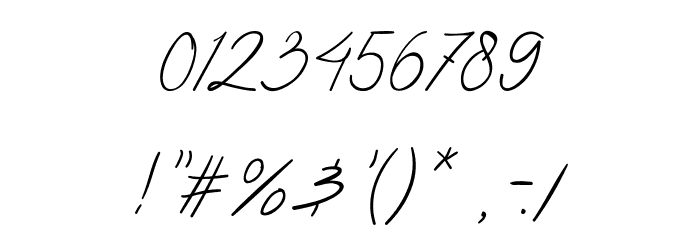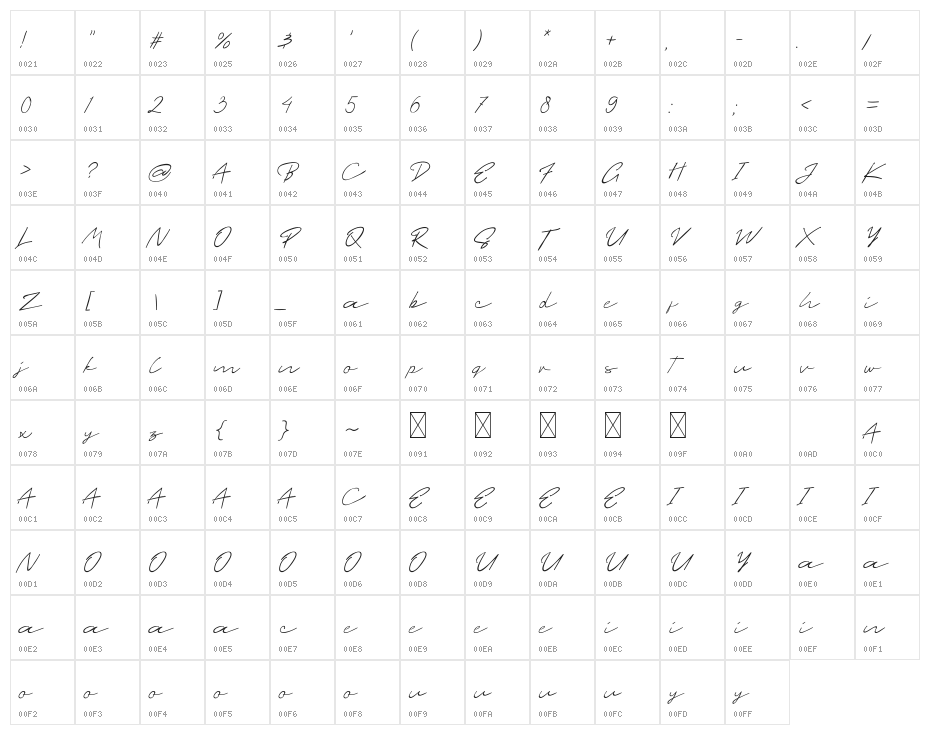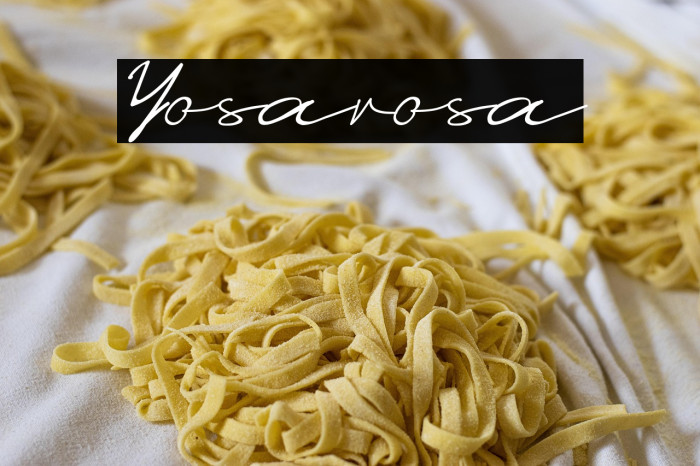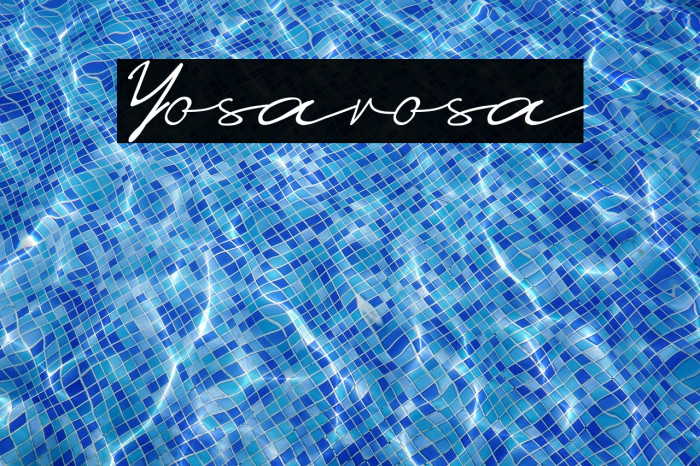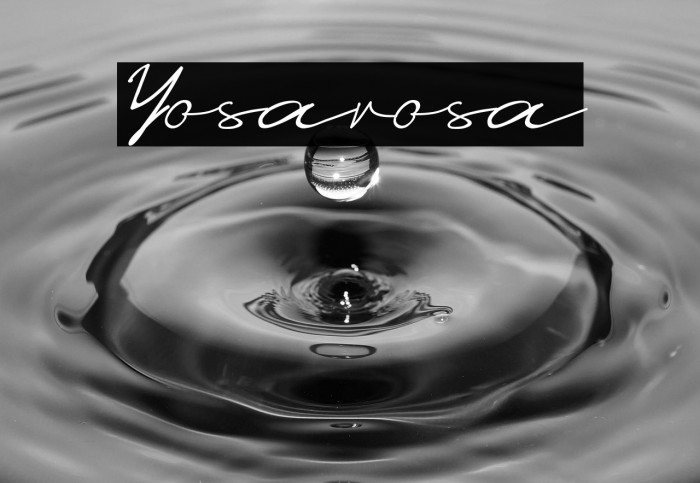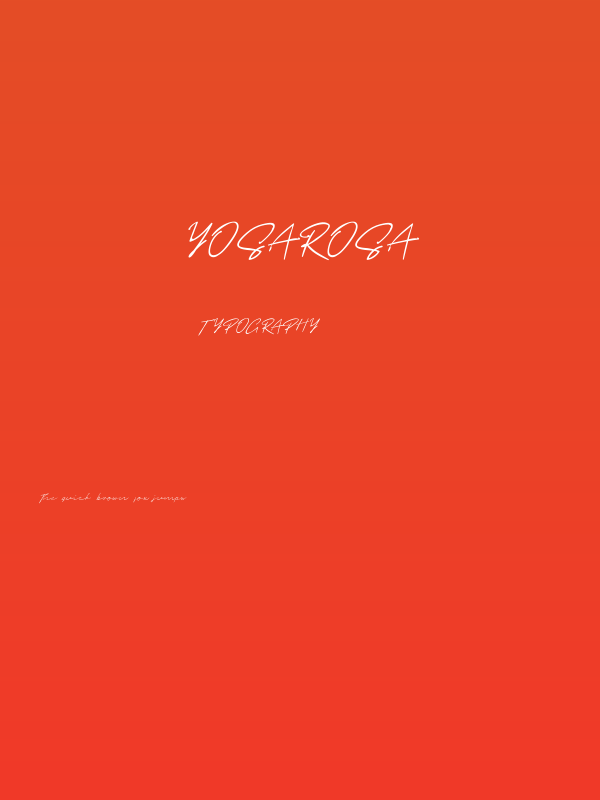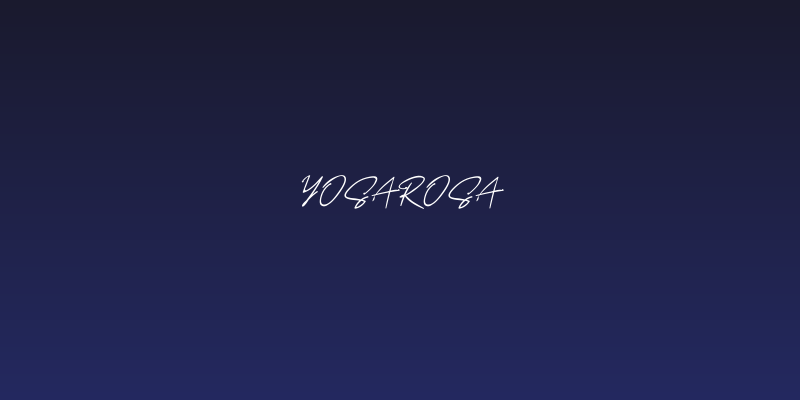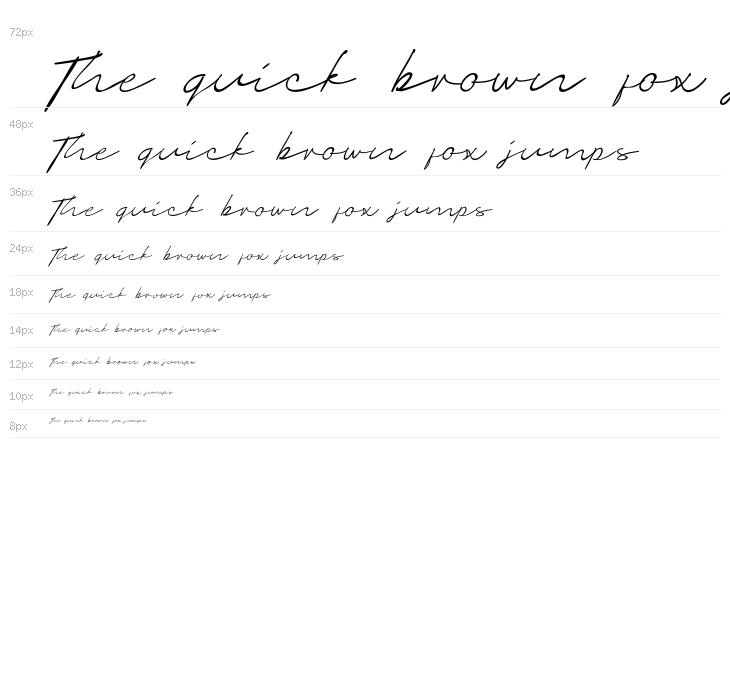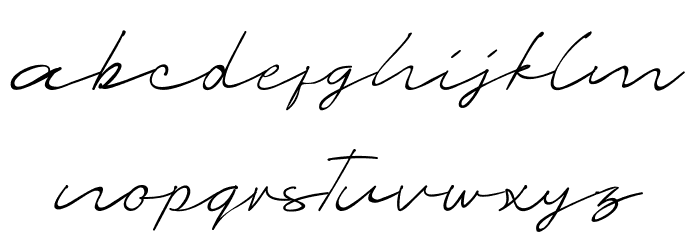
Yosarosa Font
Yosarosa Description
This elegant script font features a fluid and graceful design, characterized by its smooth, flowing strokes and cursive style. The uppercase letters exhibit a sophisticated flair, with sweeping ascenders and descenders that create a sense of movement and dynamism. The lowercase letters maintain a consistent rhythm, enhancing readability while preserving the font's artistic appeal. The numerals are stylish yet clear, making them suitable for various applications. Special characters are thoughtfully designed to complement the overall aesthetic, ensuring versatility in usage.
| Use Case | Logos, Invitations, Personal stationery |
| Proposed Projects | Ideal for wedding invitations, elegant branding, personal stationery, and artistic projects requiring a touch of sophistication. |